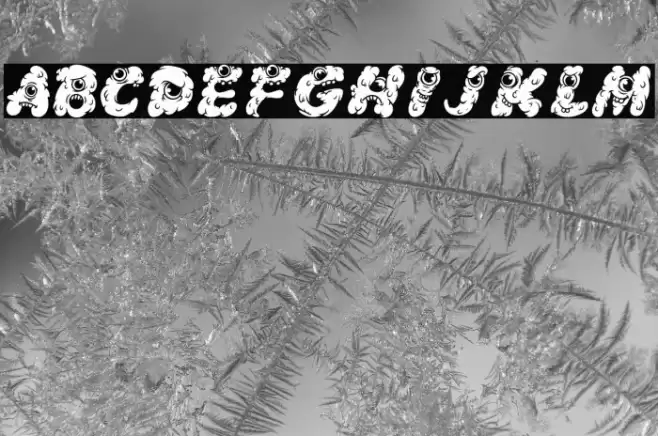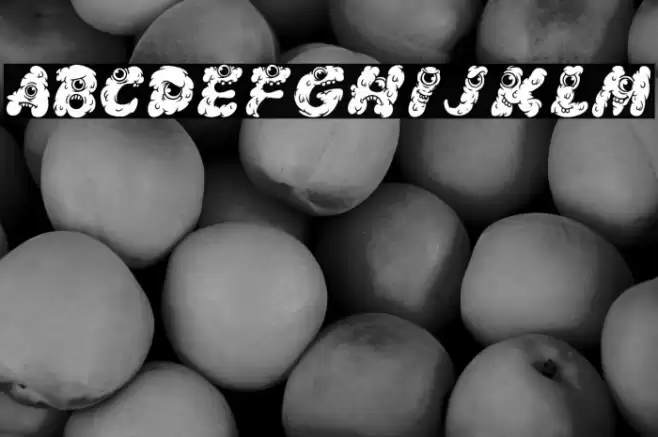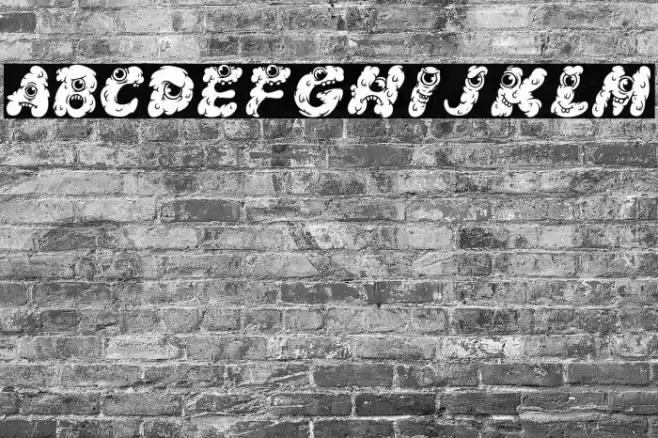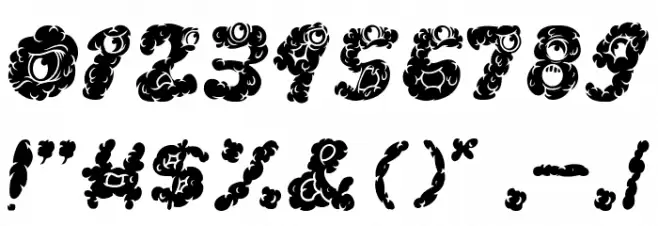
Komo Nout inline Font
Komo Nout inline Description
This font is a highly decorative and playful typeface, characterized by its intricate and whimsical design elements. Each character is adorned with swirling patterns and organic shapes, creating a lively and dynamic appearance. The font's bold and artistic style makes it stand out, with each letter and number featuring unique embellishments that give it a hand-drawn, artistic feel. The overall design is both eye-catching and imaginative, making it suitable for creative and unconventional projects. Its distinct style is perfect for capturing attention and conveying a sense of fun and creativity.
A decorative and playful font with intricate, swirling patterns from Uncategorized fonts.
- Proposed Projects: Ideal for creative projects such as children's books, playful branding, event posters, and artistic designs.